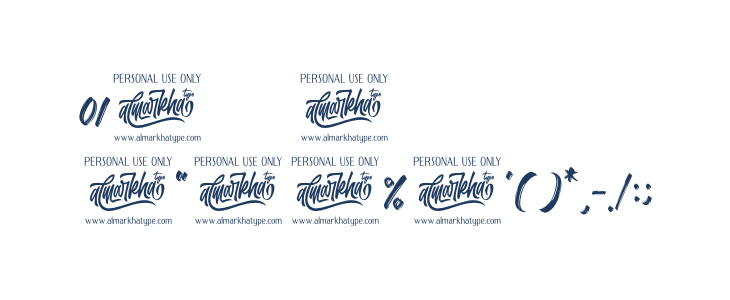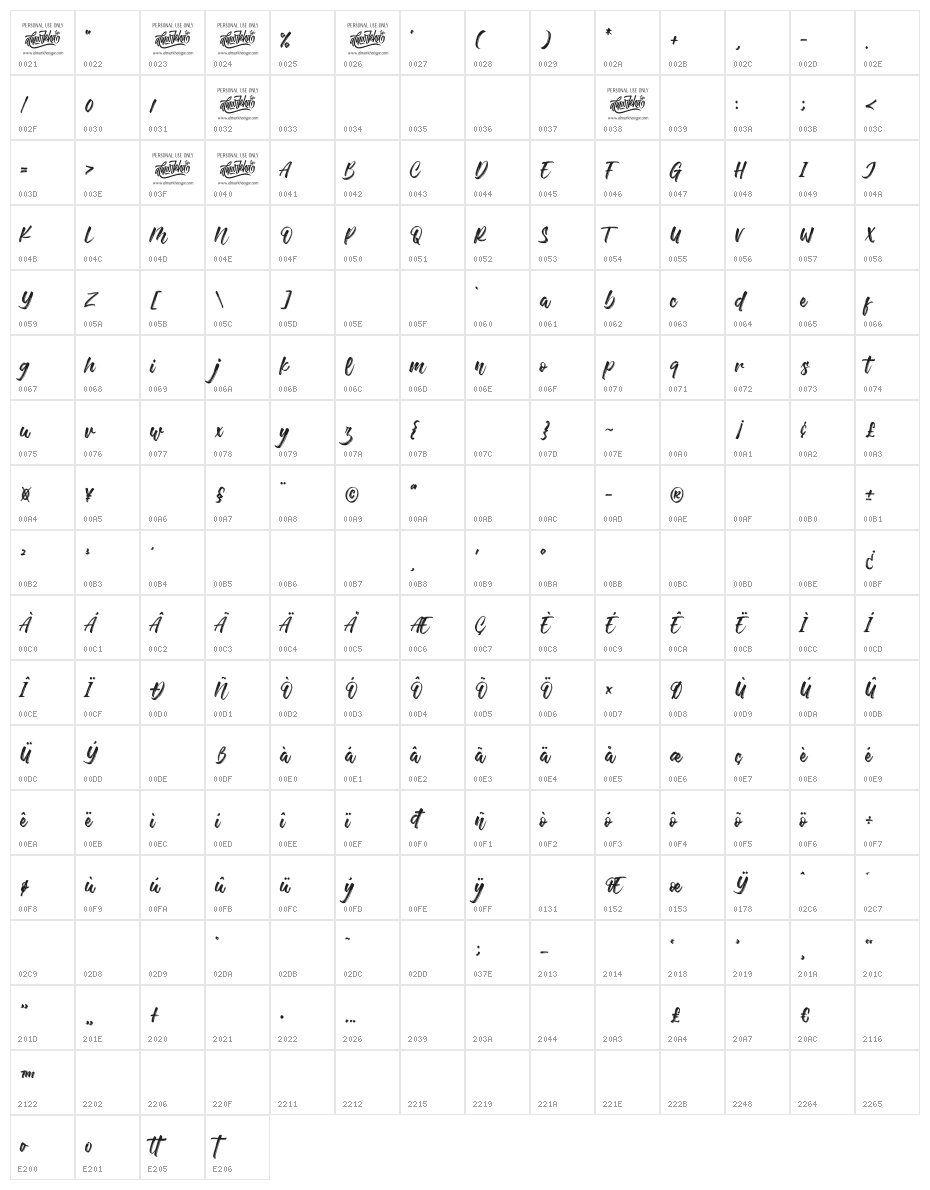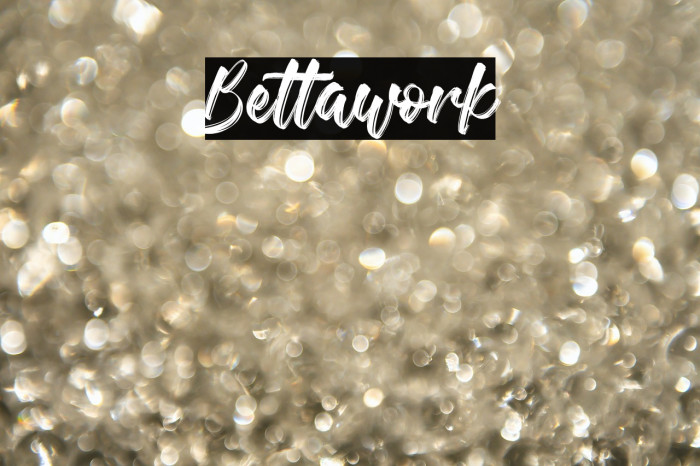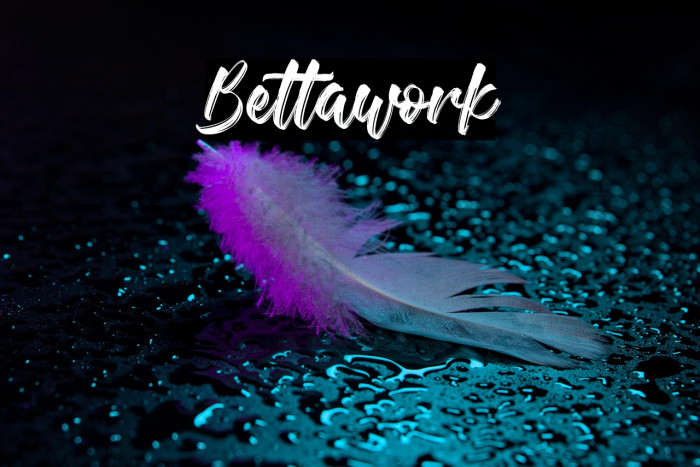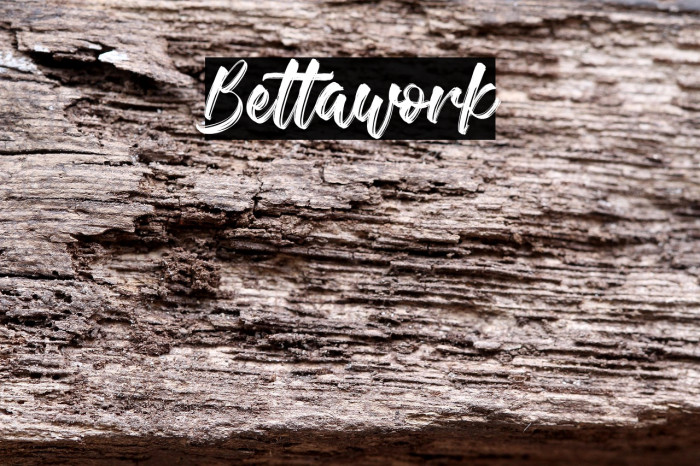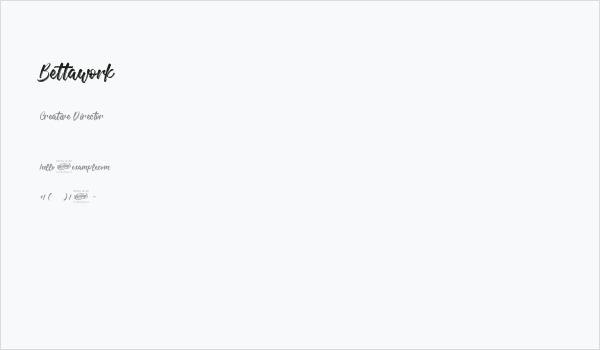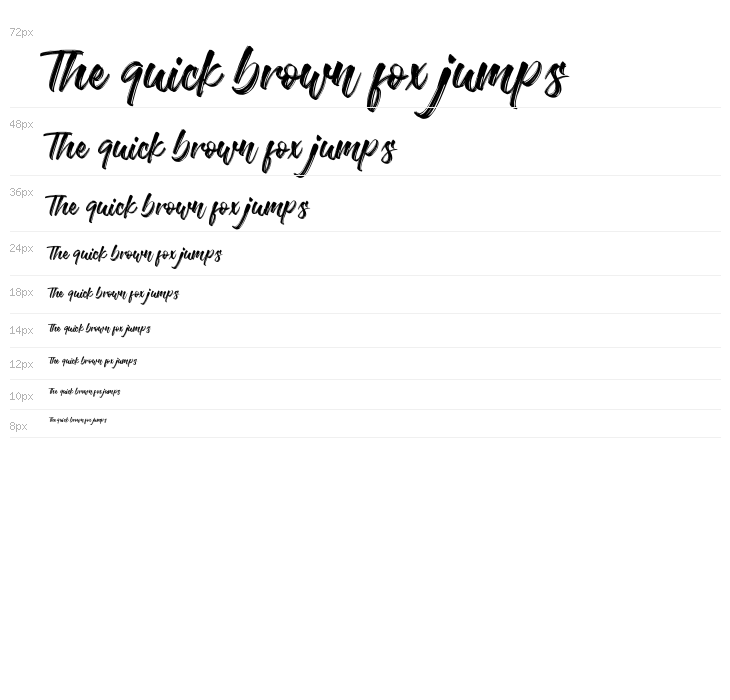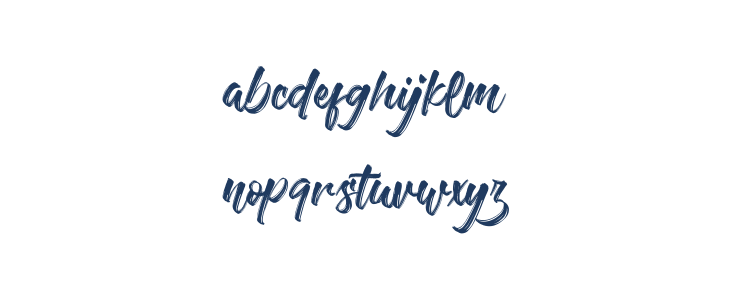
Bettawork Font
Bettawork Description
This font features a dynamic and expressive script style, characterized by its fluid, brush-like strokes and elegant curves. The uppercase letters exhibit a bold presence with a slight slant, while the lowercase letters maintain a consistent flow, enhancing readability. The numbers and special characters are designed with the same artistic flair, ensuring a cohesive look across all text. This font's unique style is perfect for adding a personal touch to any project, offering a sense of creativity and sophistication.